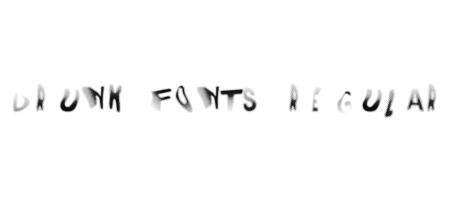
Drunk Fonts
DRUNK FONTS Regular is a playful, slightly distorted typeface. Its letters lean and wobble, giving a sense of inebriation or whimsical movement. The grayscale shading adds depth and a subtle, almost blurry effect. It's informal and expressive, suggesting fun and perhaps a bit of chaos.